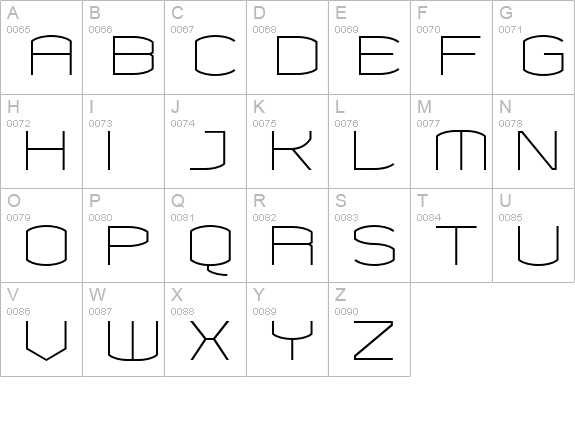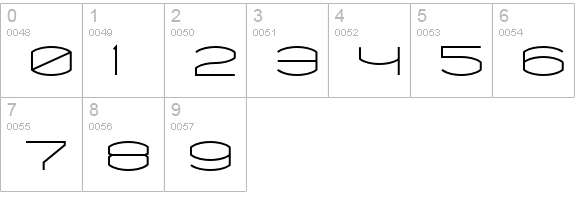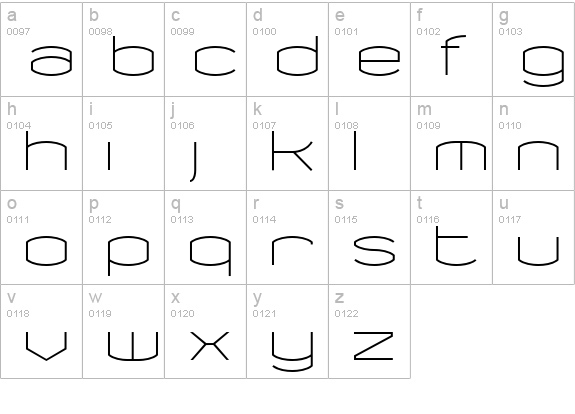
Chord-Regular is the standard, neutral variant in the Chord typeface family \xE2\x80\x94 well suited to general body text, paragraphs, and standard typographic work.
Chord-Regular font is a stylish and modern typeface that exudes elegance and sophistication. With its clean lines and geometric shapes, this font is perfect for a variety of design projects, from branding to editorial design. The Chord-Regular font is versatile and easy to read, making it a great choice for both print and digital applications. Best of all, Chord-Regular font is completely free to download at FontsMarket.com. Whether you're a seasoned designer or just starting out, this font is a valuable addition to your collection. Don't miss out on the opportunity to enhance your designs with the timeless beauty of Chord-Regular font. Download it today and see the difference it can make in your projects.